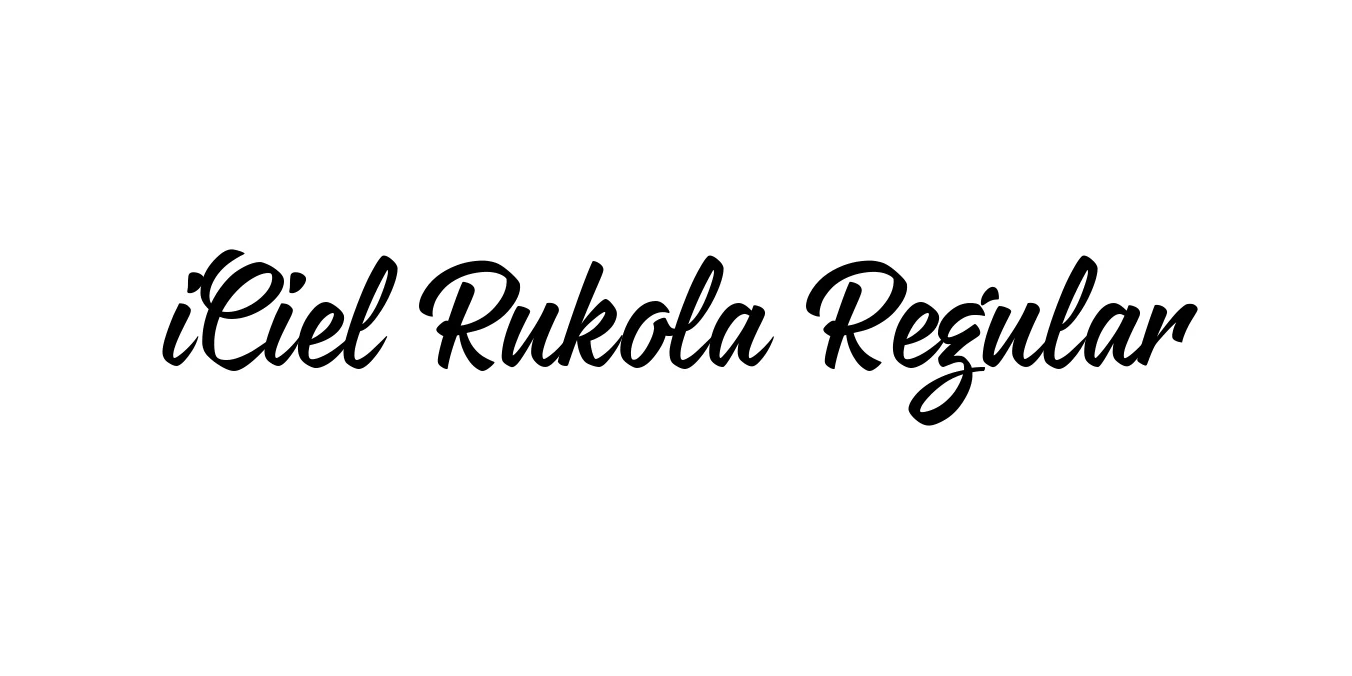
iCiel Rukola Regular
Designed by Nikola Djurek (iCiel Localization)
iCiel Rukola Regular is a localized adaptation of the original Rukola typeface, which was masterfully crafted by Nikola Djurek. This font is a brush script that draws inspiration from the art of hand-painted shop signage, offering a casual yet high-energy aesthetic. The iCiel version is specifically tailored to include comprehensive support for Vietnamese diacritics, making it an essential tool for designers looking to blend traditional brush aesthetics with local language requirements.
The typeface features a fluid, rhythmic flow with natural-looking connections that mimic actual brush strokes. Because of its friendly and approachable character, it has become a staple in the food and beverage industry, editorial layouts, and advertising campaigns. Its versatility allows it to function effectively in both vintage-inspired designs and modern, vibrant compositions that require a human touch.
iCiel Rukola Regular Best Uses
Perfect for artisanal food labels and craft beverage packaging.
Ideal for creating warm, energetic, and approachable brand identities.
Works excellently for digital shop signs and cafe menus.
Great for standout headlines in magazines and lifestyle blogs.